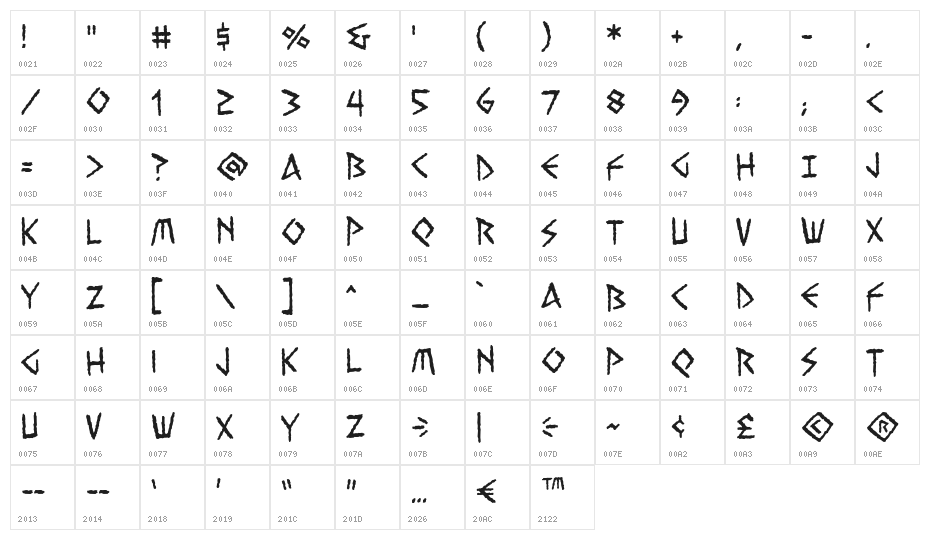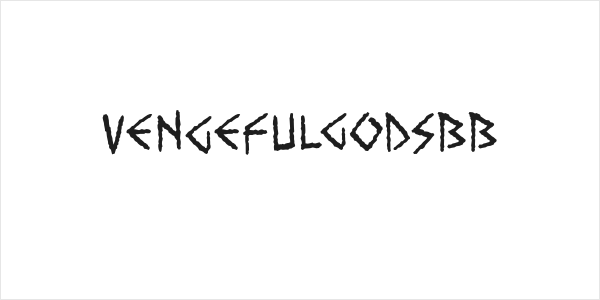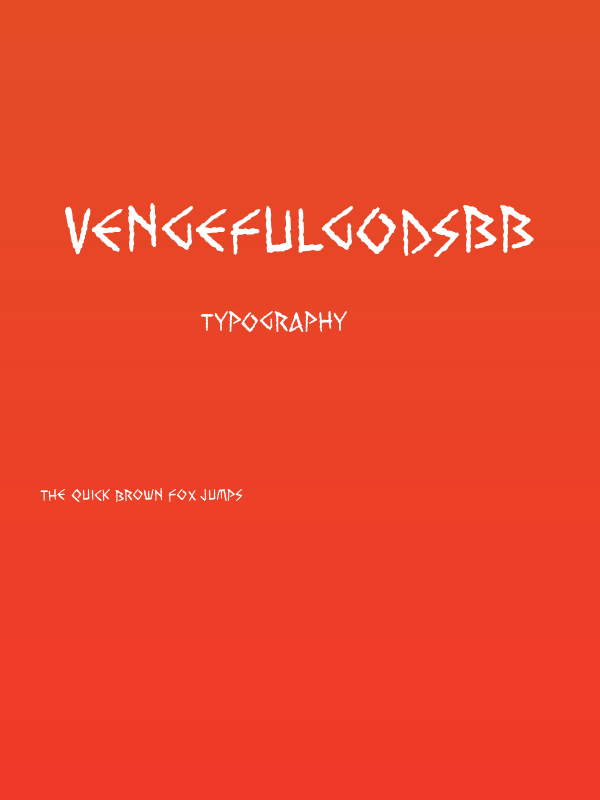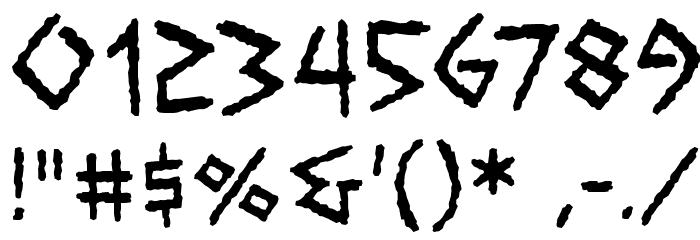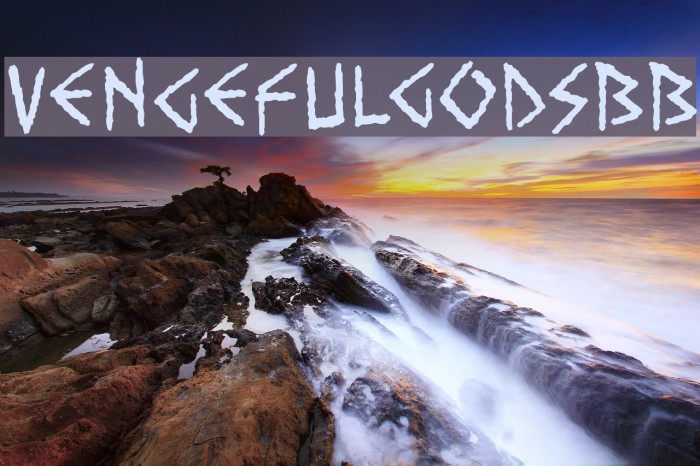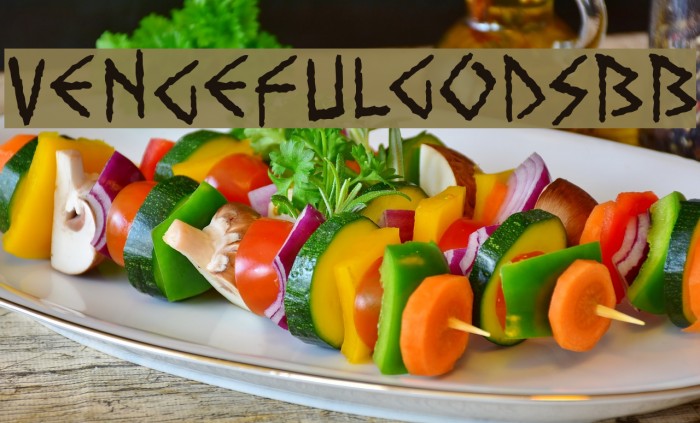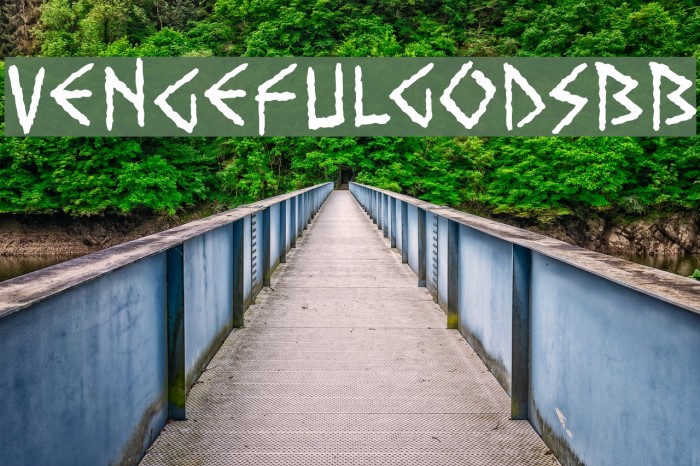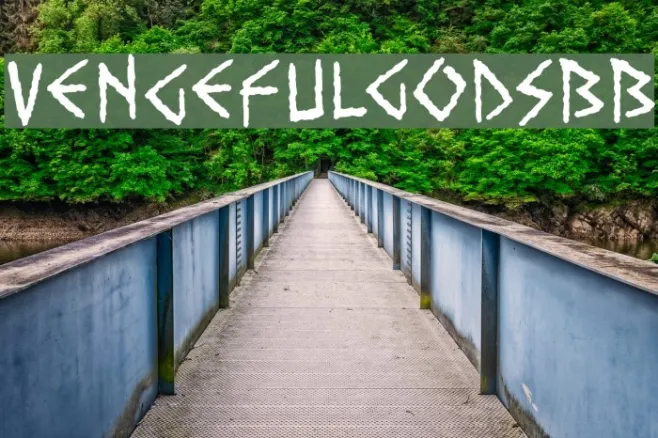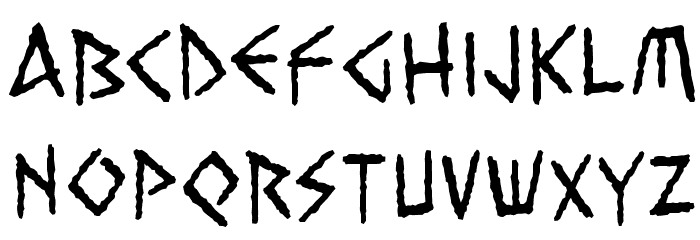
VengefulGodsBB Font
VengefulGodsBB Description
This font features a rugged, hand-drawn style with sharp, angular edges and a slightly uneven baseline, giving it a raw and primitive appearance. The characters are bold and impactful, with a distressed texture that adds to its ancient and mystical vibe. The uppercase and lowercase letters maintain a consistent style, while the numerals and special characters complement the overall design. This font evokes a sense of mystery and power, reminiscent of ancient runes or tribal markings.